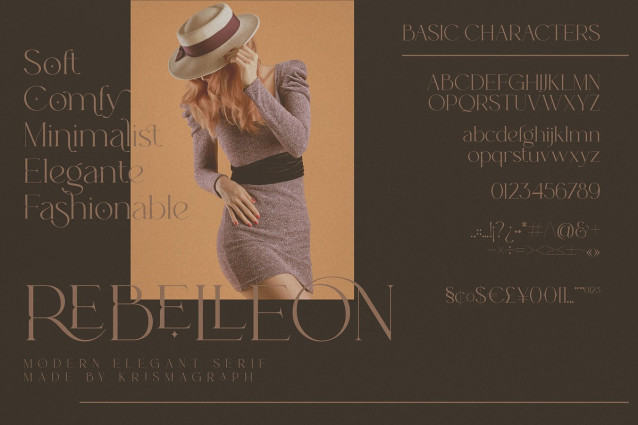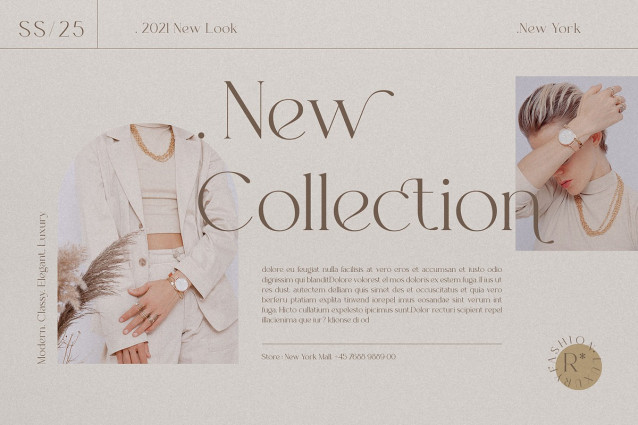
Rebelleon Font
Rebelleon Font is a modern & elegant serif with ligature & more alternates. It’s soft curves mixed with high contrast glyphs lend it self to both feminine and masculine qualities. Equipped with epic ligature, great in layout design for quotes or body copy, and will be unique to the use of the logo design. And also multilingual support.